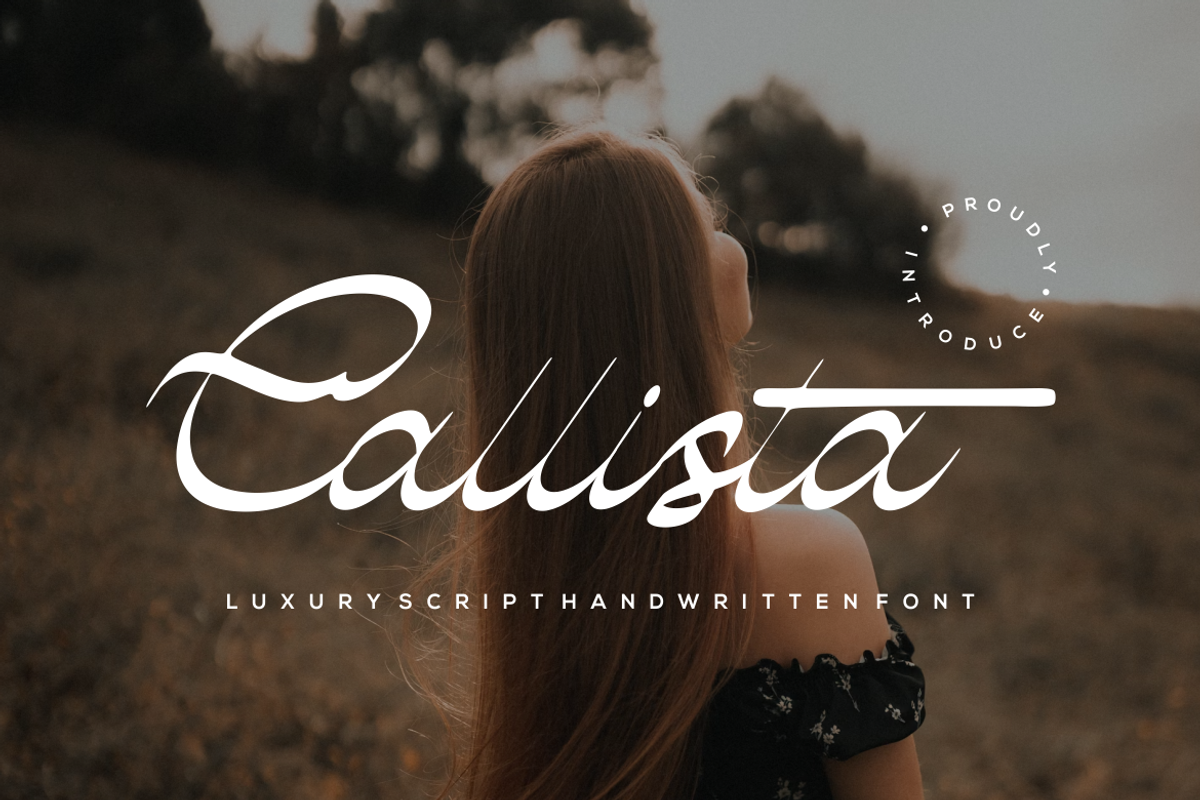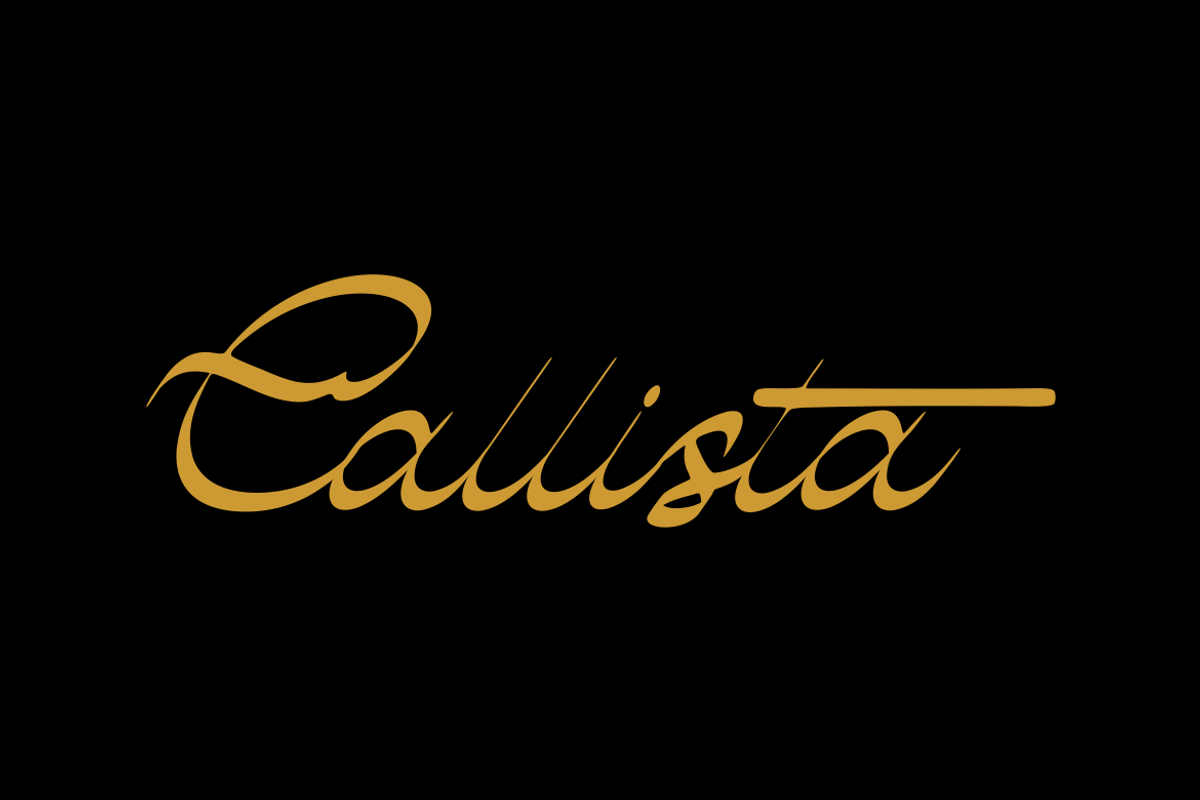
Callista
Introducing our new product Callista Luxury Script Handwritten Font
Callista Modern Font is a bold and authentic display font. The font is suitable for any branding project like logo, t-shirt printing, esport, and many more. outstanding in a wide range of contexts.